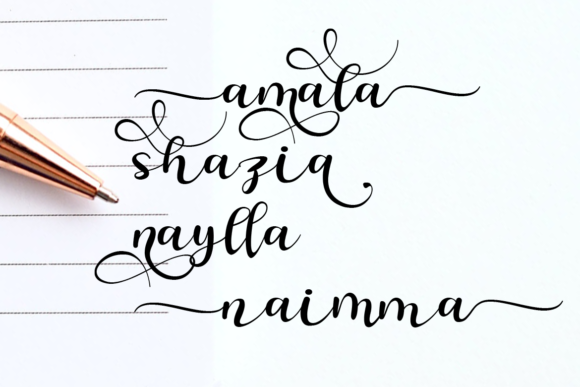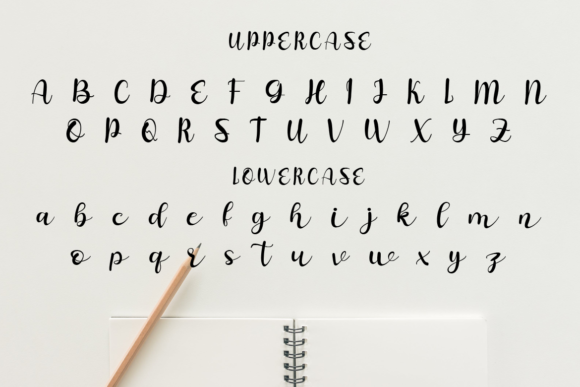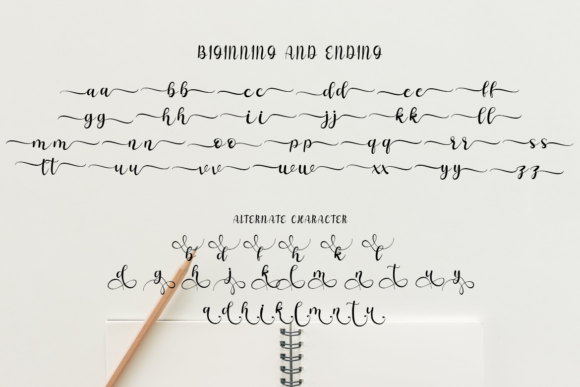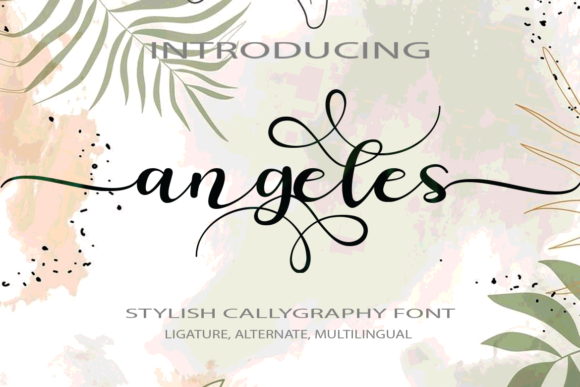
The Angeles Font: A Handwritten Masterpiece to Elevate Your Designs
I’ll never forget the moment I stumbled upon the Angeles font. I was working on a project for a client who wanted a unique, handwritten look that would make their brand stand out. I had spent hours scouring the internet for the perfect font, but nothing seemed quite right. That was until I discovered Angeles. With its beautiful, flowing script and incredible versatility, it quickly became my go-to choice for a wide range of design projects.
- ✨ Unique and Beautiful Design: Angeles is an incredibly unique and beautiful handwritten font that adds a touch of elegance to any design project.
- ✅ PUA Encoded: This font is PUA encoded, which means you can access all of the glyphs and swashes with ease, giving you endless creative possibilities.
- 💫 Highly Versatile: Whether you’re working on a logo, branding project, or social media graphics, Angeles has the potential to bring each of your creative ideas to the highest level.
While Angeles is an amazing font, there are a few things to keep in mind. For example, ⚠️ some users may find the font a bit too ornate for certain projects. Additionally, 🤔 you may need to experiment with different sizes and colors to get the look just right.
The Story Behind Angeles Font
Angeles was designed by a team of skilled typographers who wanted to create a unique and beautiful handwritten font that would inspire creativity and bring a touch of elegance to any design project. With its flowing script and intricate details, Angeles is the perfect choice for designers, crafters, and creative hobbyists who want to add a personal touch to their work.
| What is the Angeles font? | Angeles is a beautiful and unique handwritten font that’s perfect for creating elegant and sophisticated designs. |
| Is Angeles font PUA encoded? | Yes, Angeles font is PUA encoded, which means you can access all of the glyphs and swashes with ease. |